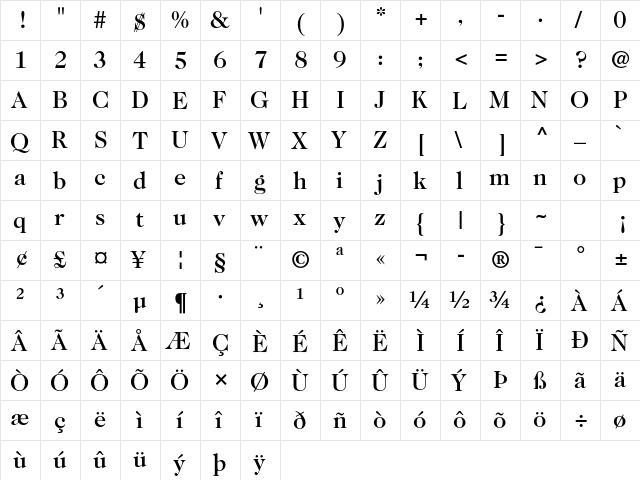
ITC Caslon 224 Std Medium
| Designer | Ed Benguiat |
Design Context for ITC Caslon 224 Std Typeface
ITC Caslon 224 Std takes a measured approach to typography — its balanced proportions and neutral character make it a reliable workhorse for both digital and print work.
Pro Tip: Pair ITC Caslon 224 Std with a font of contrasting weight or personality to build a more expressive typographic hierarchy.